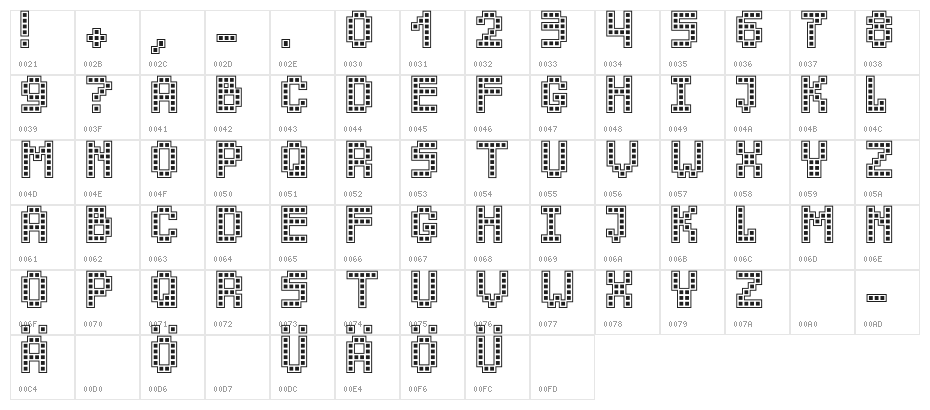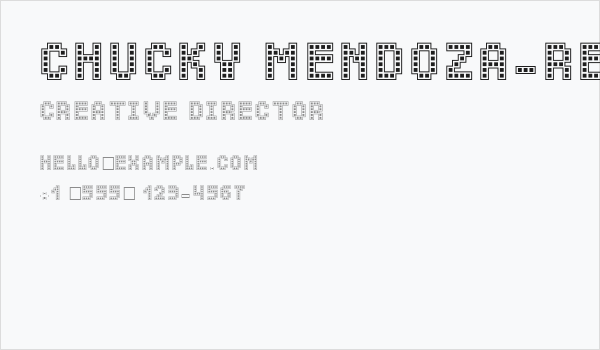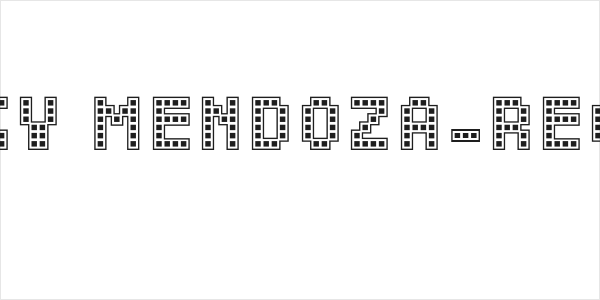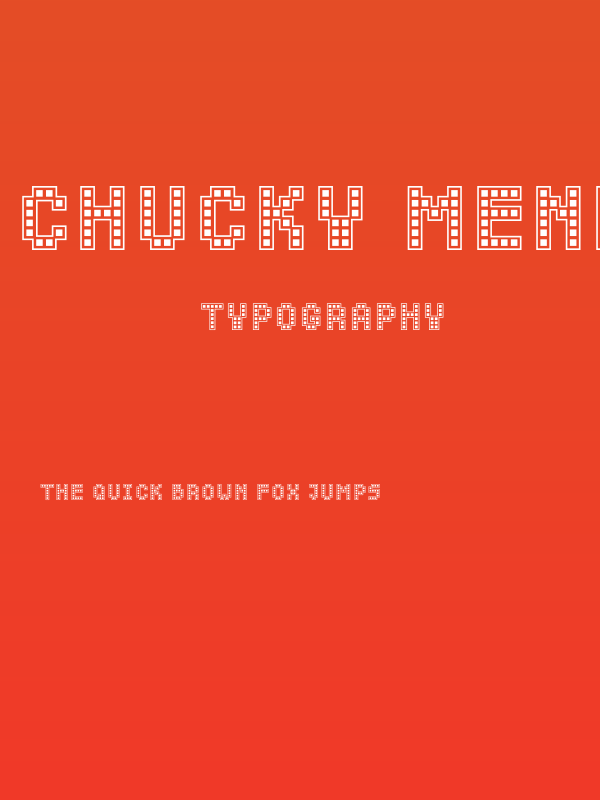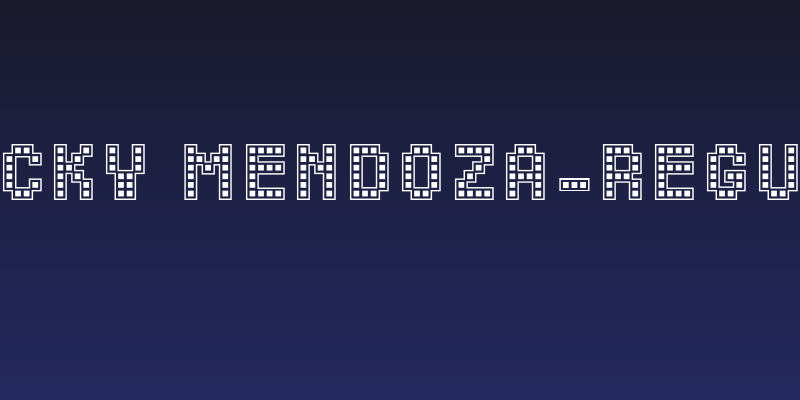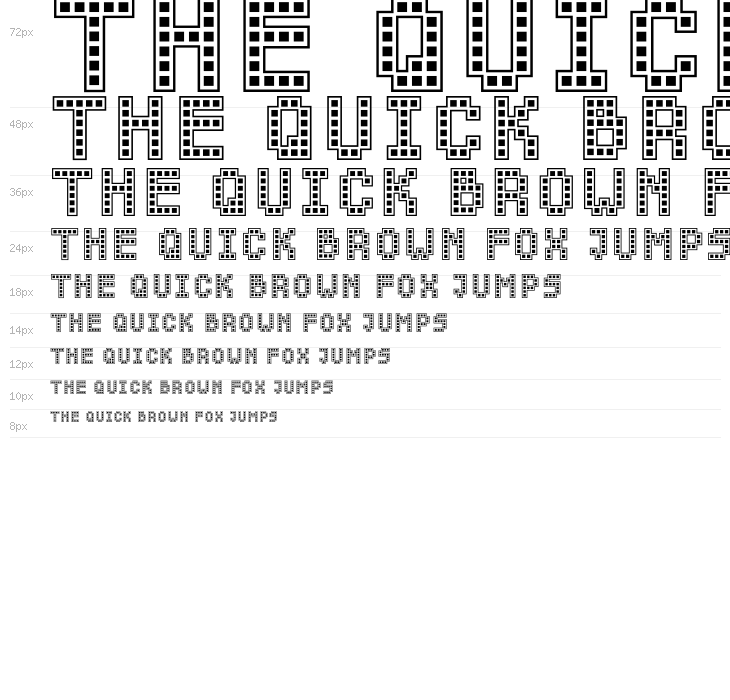
Chucky Mendoza-Regular Font
Chucky Mendoza-Regular Description
This font features a unique and playful design with a grid-like pattern filling each character. The letters and numbers are constructed with a series of small squares, giving it a pixelated, digital appearance. The style is bold and eye-catching, making it ideal for creative and modern projects. The uppercase and lowercase letters maintain a consistent structure, while the numbers and special characters follow the same design principle, ensuring uniformity across all elements. This font is perfect for projects that require a distinctive and fun aesthetic.
| Proposed Projects | Ideal for video game graphics, tech-themed posters, digital art projects, and modern branding. |